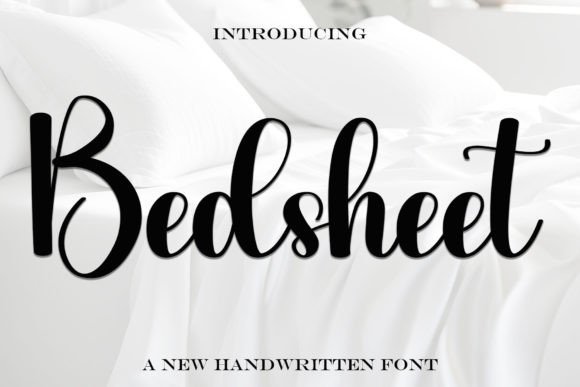
Introducing Bedsheet Font, the ultimate choice for script font enthusiasts! Created by the talented putrasyahreza00, this remarkable font is designed to add a touch of elegance to your projects. With its neat and beautiful handwritten style, Bedsheet Font will captivate your audience and leave a lasting impression.
Fall head over heels for the exquisite charm of Bedsheet Font. Its incredibly distinct and timeless design will transport your creations to a whole new level of sophistication. Whether you're working on invitations, logos, or branding materials, this font will effortlessly elevate your designs to new heights.
Bedsheet Font is the epitome of elegance and creativity. Its refined strokes and graceful curves evoke a sense of luxury and exclusivity. Every letter is carefully crafted, making it a truly unique and captivating choice for any project. Infuse your designs with the charm and personality that only Bedsheet Font can offer.
Discover the versatility of Bedsheet Font and unlock endless possibilities for your creative ventures. Its script style allows you to convey a wide range of emotions and messages, from playful and whimsical to sophisticated and professional. Let your imagination run wild and watch as Bedsheet Font effortlessly brings your ideas to life.
With its captivating charm and impeccable quality, Bedsheet Font is a must-have for anyone in search of the perfect script font. Its keyword-rich design ensures that your content will be easily discoverable by users looking for the best font for a script. Stand out from the crowd and make a bold statement with Bedsheet Font.